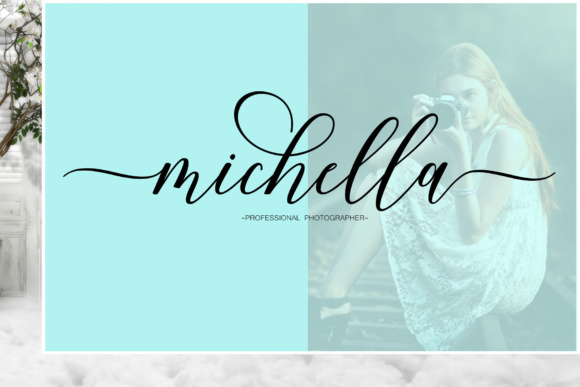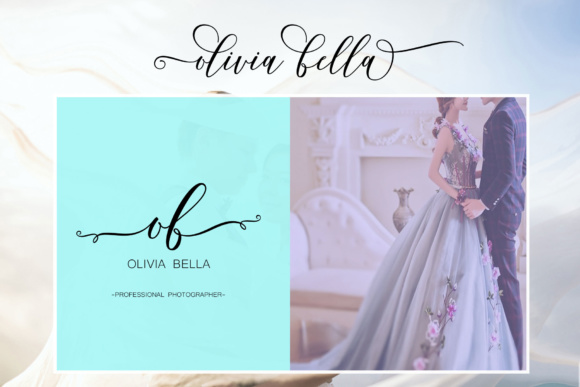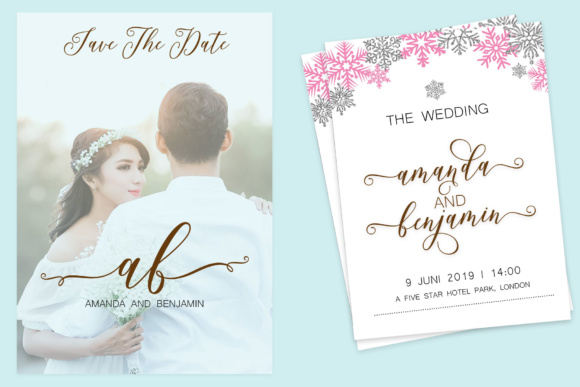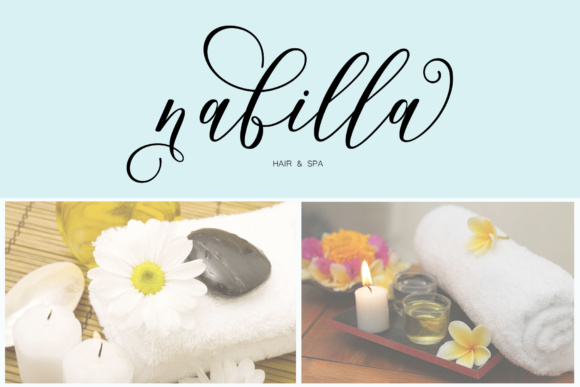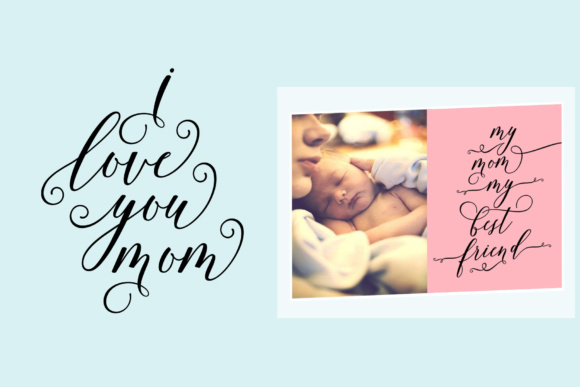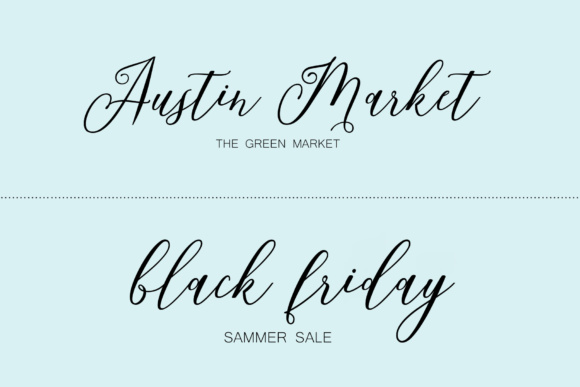
Find Your Perfect Script: Introducing Famouline Script Font
You know that moment when you’re brainstorming a new design project and you’re stuck on the perfect font? The one that will elevate your logo, branding, or social media post to the next level? For designers, this is a common dilemma, but what if we told you that there’s a solution that can bring harmony to your typographic chaos? Enter the beautiful and elegant Famouline Script Font, designed to bring a touch of sophistication to your designs.
This versatile font is perfect for a wide range of projects, from logos and branding to wedding designs, social media posts, advertising, and product design. With its unique blend of elegance and playfulness, Famouline Script Font is a valuable addition to any designer’s toolkit, offering a level of customization and creativity that’s hard to find in other fonts.
Famouline Script Font Key Features
- Unique Characteristics: Famouline Script Font boasts a beautiful, handwritten feel with elegant connections between letters, making it perfect for creating a personal and artistic touch in designs.
- Font Style: This script font features a mix of cursive and calligraphic elements, giving it a unique and sophisticated appearance that is suitable for a wide range of design applications.
Famouline Script Font Review
Overall, I was really excited to dive into the Famouline Script Font. At first glance, it’s a beautiful, elegant font that can easily elevate any design project. ✨ The connected letters create a flowing feel that makes it perfect for titles, quotes, or even logotypes.
- Beautiful, connected script letters ✨
- Elegant feel that’s perfect for titles, quotes, or logotypes
- Works well in both digital and print formats
However, like any font, it’s not without its limitations. ⚠️ One of the main issues I found was the lack of bold weights. While it’s nice for titles, it can make it difficult to create a clear hierarchy in a design. Additionally, some of the letters can be quite thin, which may not be ideal for large-scale use.
- Lack of bold weights ⚠️
- Slightly thin letters that may not be suitable for large-scale use
- May not be ideal for designs that require a strong, bold look
Despite these limitations, I still think the Famouline Script Font is a great addition to any designer’s toolkit. It’s a beautiful, elegant font that can add a touch of sophistication to any project. Just be mindful of its limitations and use it in the right context.
Tips for Getting the Most Out of Famouline Script Font
Use Famouline Script Font for titles, headings, and quotes to add a touch of elegance to your designs.
Pair Famouline Script Font with other elegant fonts to create a cohesive look.
Famouline Script Font is ideal for:
Branding and marketing materials
Photography and art projects
Alternatives to Famouline Script Font
Playfair Display is a luxurious, high-end script font ideal for wedding invitations, luxury branding, and high-end publications. It features intricate details and elegant lines that evoke a sense of sophistication.
Comparison: While Famouline Script Font has a similar elegant feel, Playfair Display is more ornate and detailed, making it better suited for high-end applications. Famouline Script Font is more versatile and can be used for a wider range of designs.